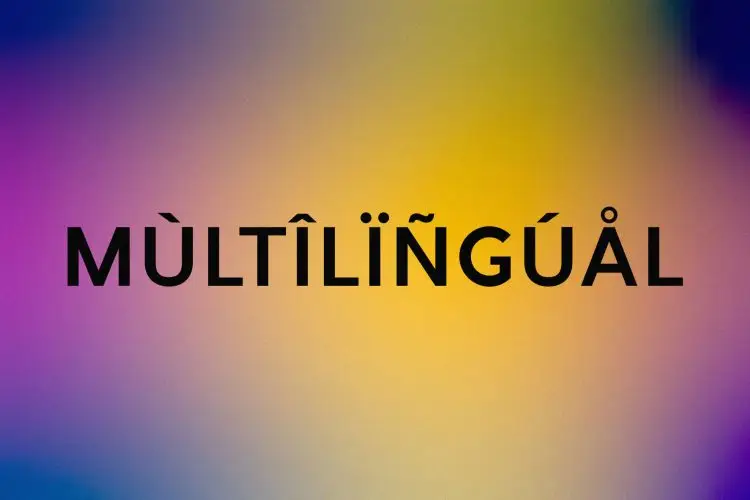
Friska Sans Serif Typeface
Friska
A classy and modern sans-serif font tailored for a wide range of design applications, including websites, logos, magazines, and social media posts. With its sophisticated and contemporary design, Friska is the perfect choice for those seeking a touch of elegance in their creative projects. Elevate your designs with the refined and timeless appeal of Friska, ensuring a touch of class in every visual endeavor.
• Immaculately Crafted Letters
Friska is a sans serif typeface that combines modern sophistication with timeless appeal. Perfect for web design, logos, and social media posts, it adds elegance to any project.